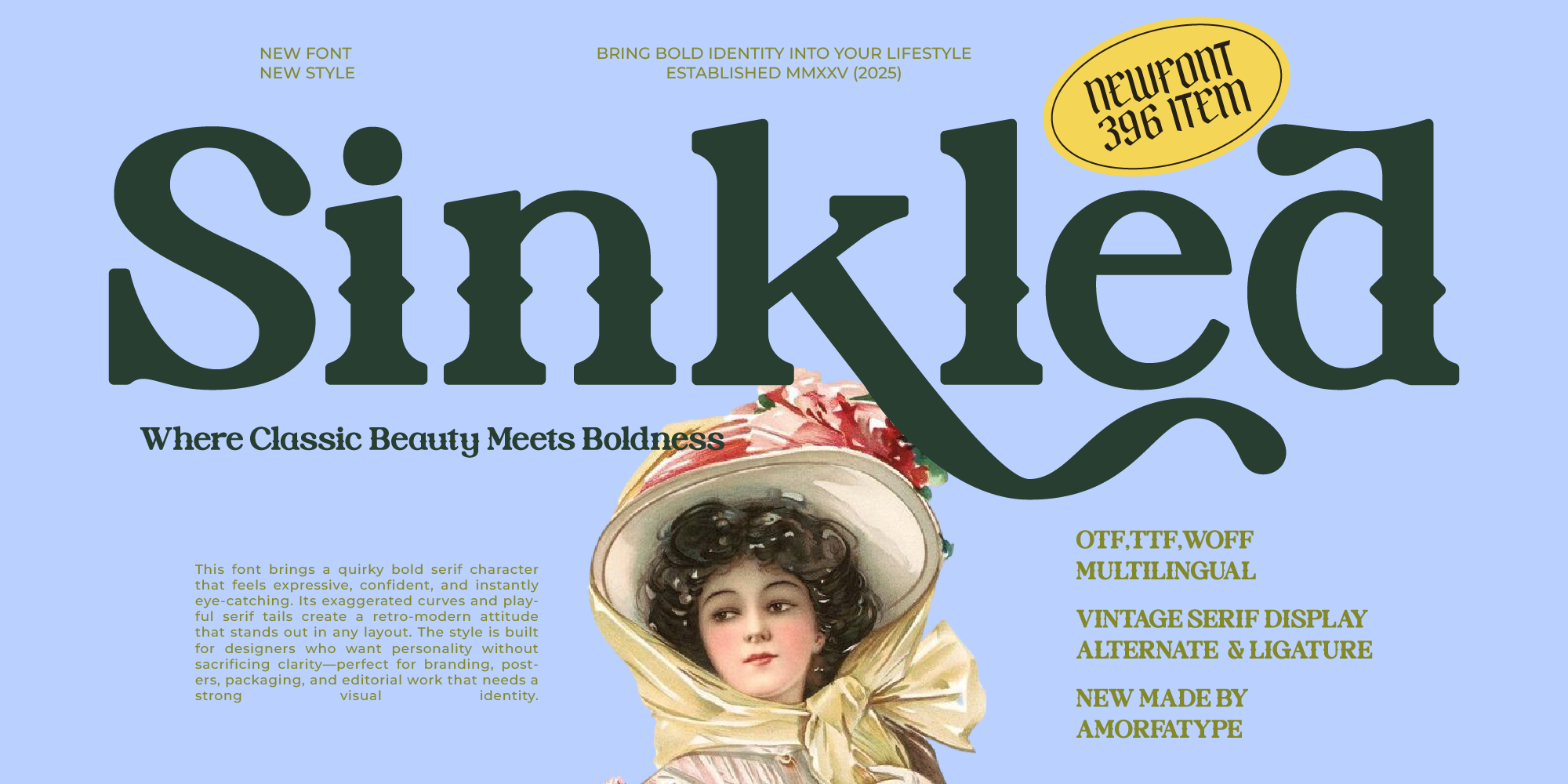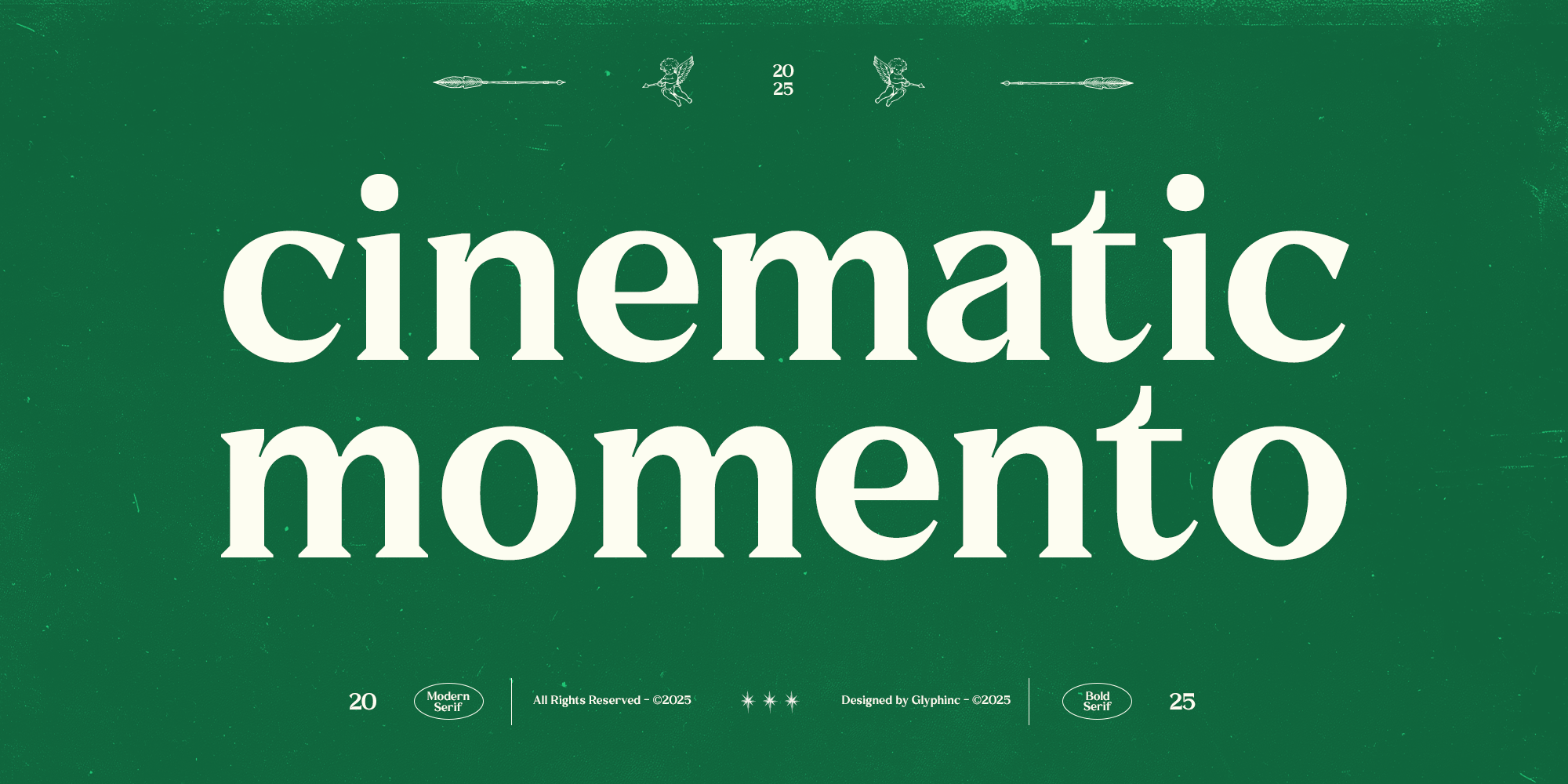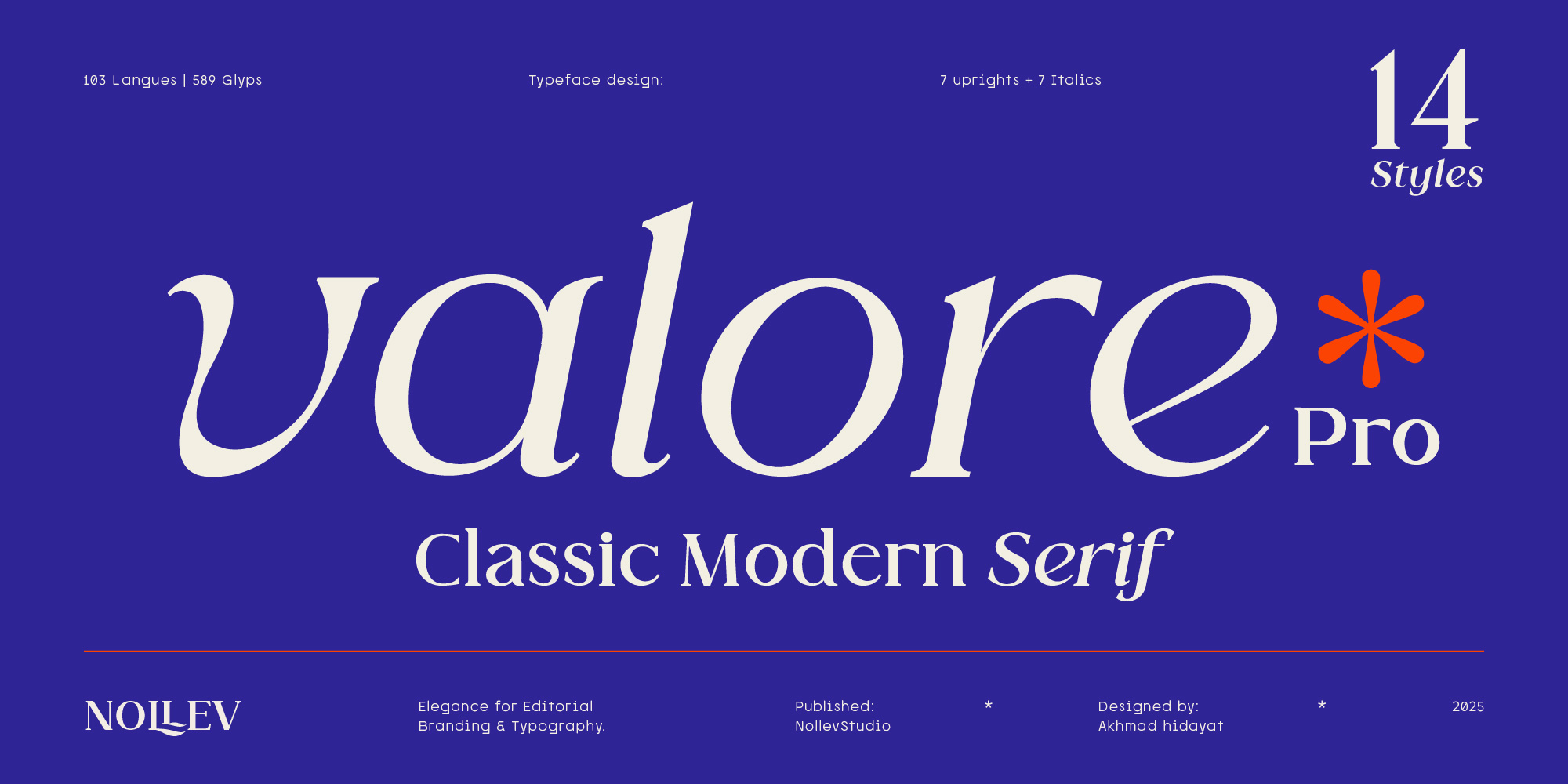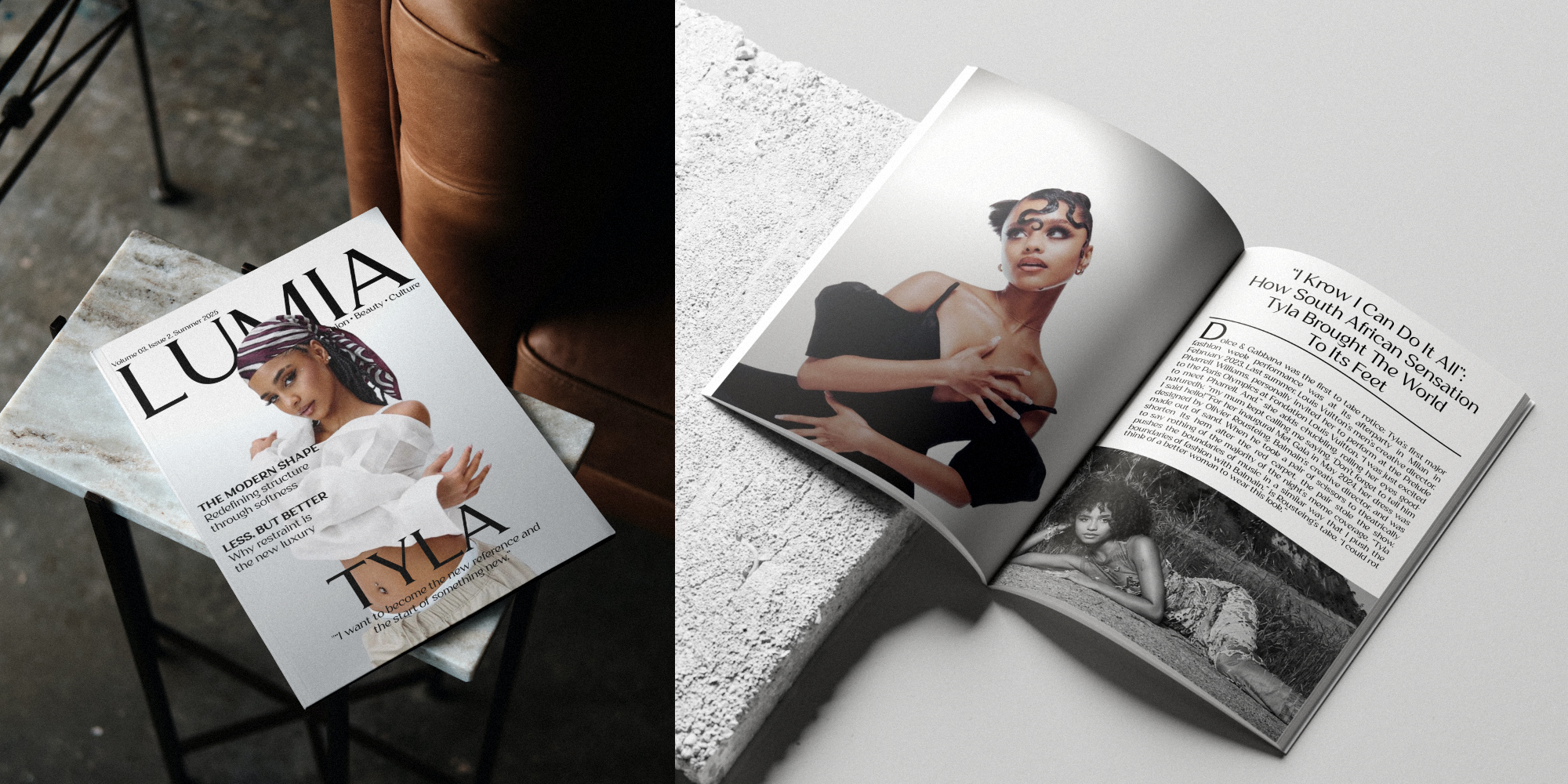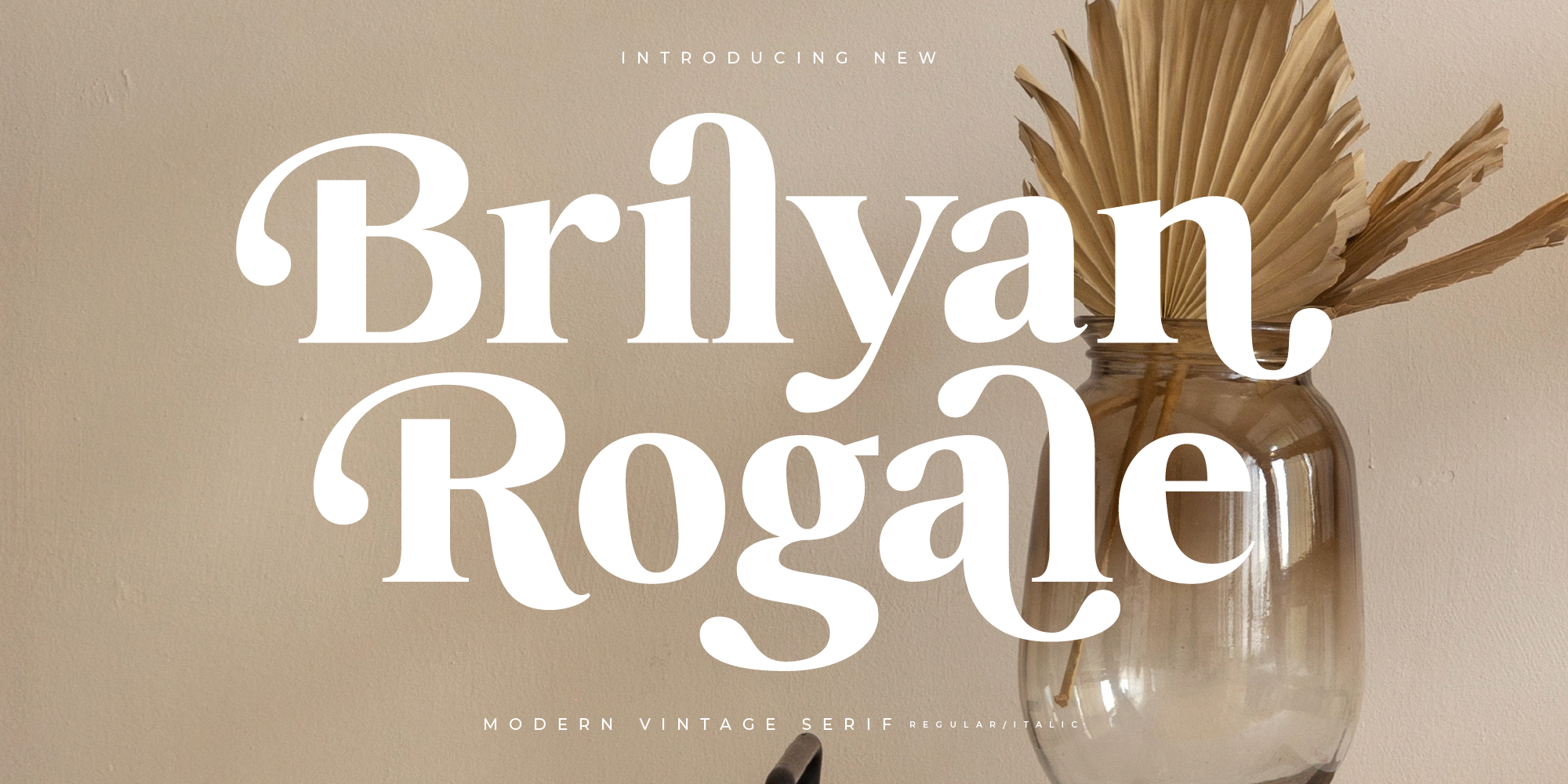
Sinkled is a vintage serif display typeface that blends classic character with a refined modern touch. Its strong letterforms, sharp serif details, and retro-inspired curves create a bold visual personality while maintaining solid readability. Designed for creators who want a typeface with nostalgic charm and contemporary confidence, Sinkled brings a distinctive and memorable presence to any layout. With Sinkled offers wide creative flexibility. Each character is crafted to add expression and variation, making it ideal for impactful titles, expressive branding, and retro-themed visuals. 2 fonts for $15 | |
GC Commune is a bold modern serif typeface with distinctive inktrap details that blends classic elegance with contemporary sharpness. Designed to balance sophistication and readability, it's perfectly suited for headlines, branding, logos, packaging, editorial layouts, and impactful print design. Crafted to make a memorable impression, it delivers both character and precision in every letter.
With its high-contrast strokes, structured serifs, and signature inktrap cuts, GC Commune offers a refined yet striking look. Whether you're designing for fashion, lifestyle, corporate, or artistic projects, this typeface provides versatility with a confident modern edge. 2 fonts for $20 | |
Valore Pro is a classic modern serif typeface that combines elegant contrast, refined curves, and high readability for editorial, branding, and sophisticated design projects. The family features 14 styles (7 weights with matching italics), extensive language support, and is fully optimized for both print and digital applications, making it a versatile choice for professional designers. 14 fonts for $129 | |
Clavisy is a modern serif typeface crafted for brands and creatives seeking refinement without sacrificing personality. Its sleek curves, sharp details, and balanced proportions create a timeless aesthetic that exudes both luxury and contemporary flair. Designed with versatility in mind, Clavisy excels in high-end branding, fashion editorials, packaging, magazines, social media graphics, and logos that require a polished yet distinctive voice. The expressive italics provide a stylish contrast, enhancing headlines, quotes, and display typography with effortless elegance. 18 fonts for $68 $47.60 | |
Brilyan Rogale – Modern Vintage Serif , from Letterena, is a Luxury Serif font, suitable for any projects such as: logos, branding projects, homeware designs, product packaging, mugs, quotes, posters, shopping bags, t-shirts, book covers, name card, invitation cards, greeting cards, label, photography, watermark, special events, and all your other luxury and beautiful projects that need a Luxury Serif taste. 2 fonts for $19 | |